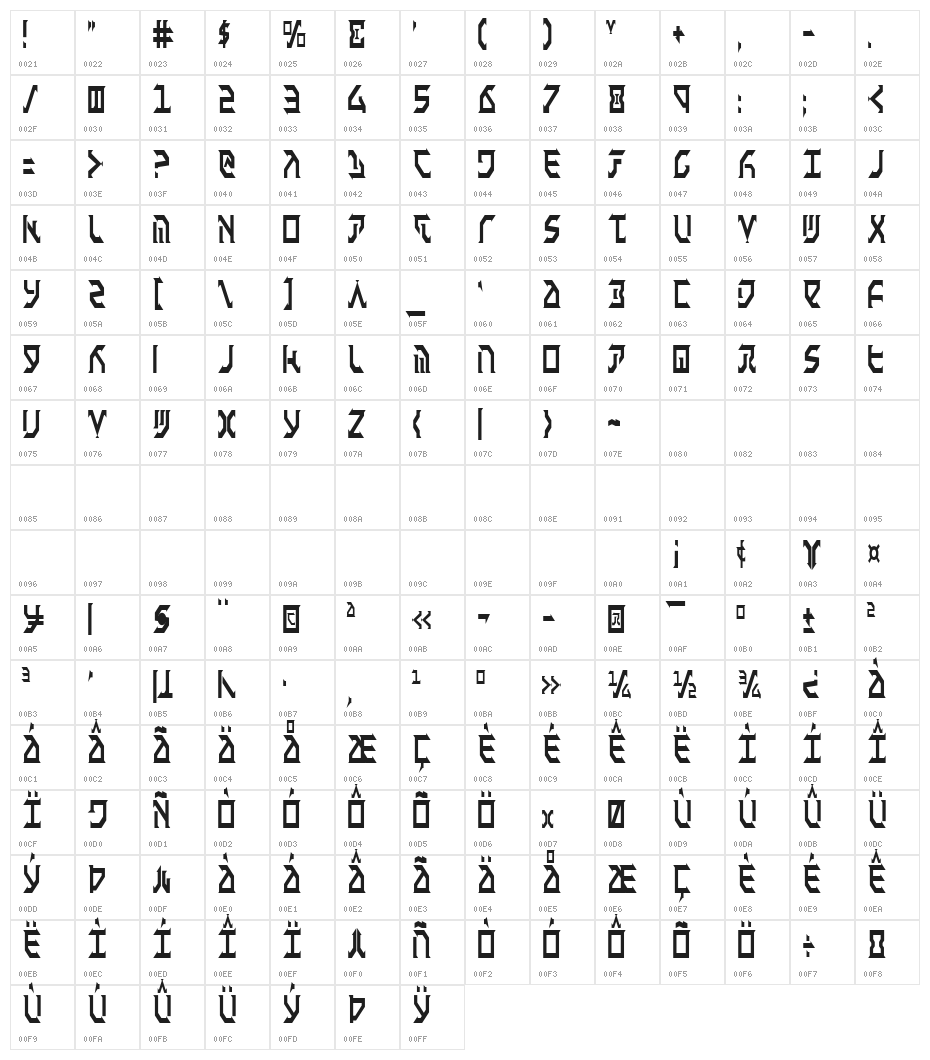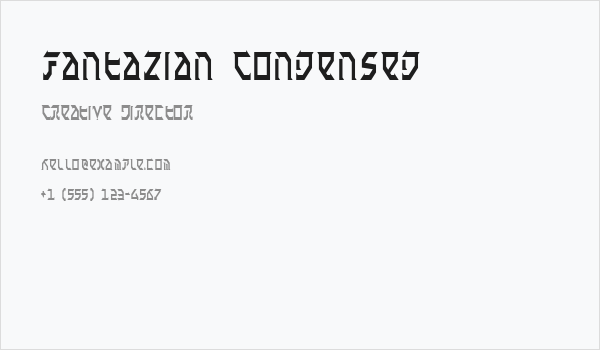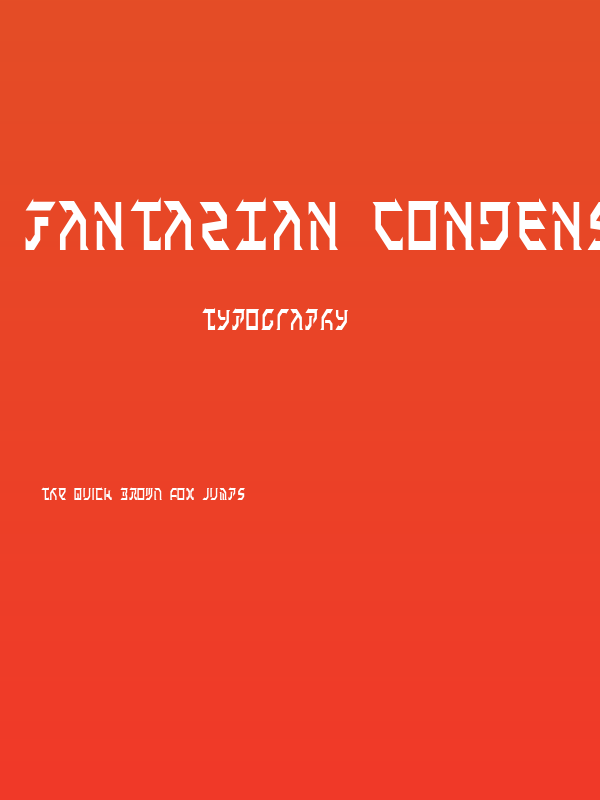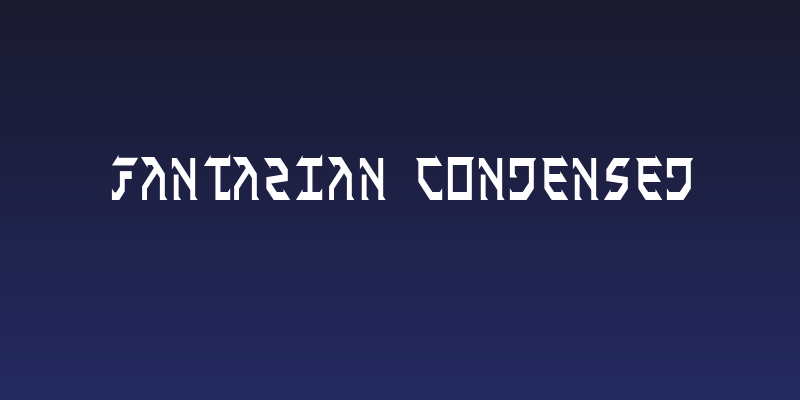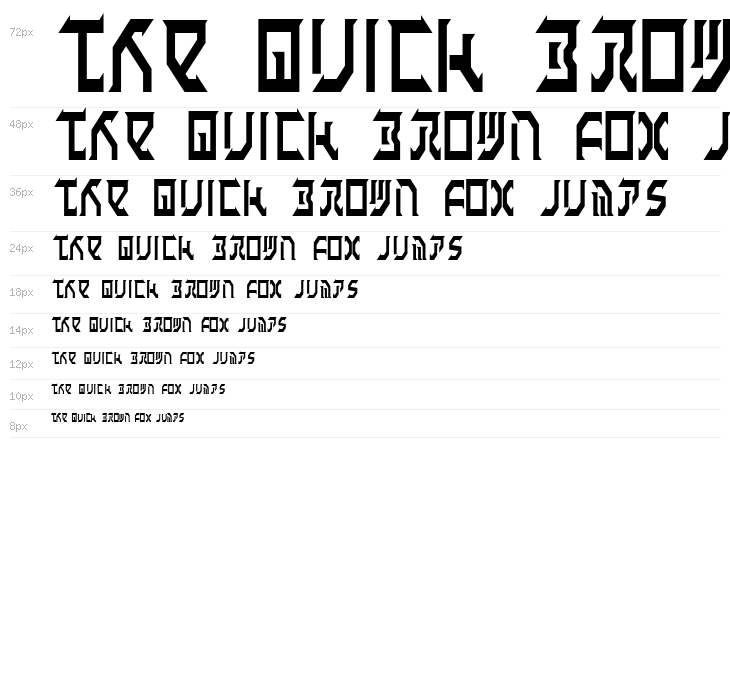
Fantazian Condensed Font
Fantazian Condensed Description
This font showcases a bold, geometric design with sharp angles and a futuristic aesthetic. Each character is crafted with precision, featuring distinct cutouts and angular shapes that create a sense of movement and energy. The uppercase and lowercase letters maintain a consistent style, while the numbers and special characters complement the overall design. The condensed nature of the font allows for efficient use of space, making it ideal for impactful headlines and attention-grabbing titles. The high contrast between the thick and thin strokes adds to its dynamic appearance, making it suitable for modern and edgy design projects.
Proposed ProjectsIdeal for sci-fi themed posters, video game titles, branding for tech companies, and modern graphic design projects.